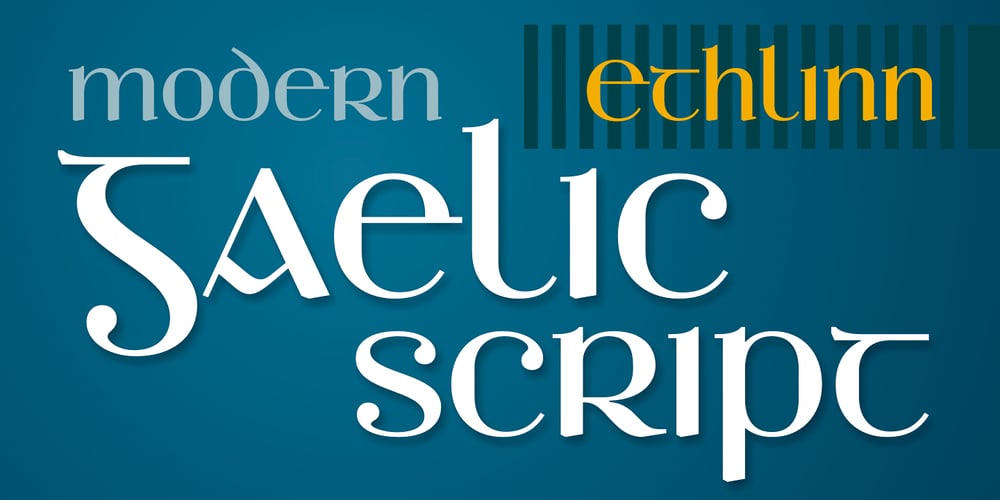
Ethlinn Font Family was designed by Paweł Burgiel and published by Paweł Burgiel. Ethlinn contains 8 styles and family package options. Ethlinn is a modern gaelic (celtic) typeface with uncomplicated appearance and geometric glyphs shapes. Character set support Central and Eastern European as well as Western European languages and include also popular recycling symbols used for packaging. It is useful for display, poster, books titling, advertising, and magazine work.